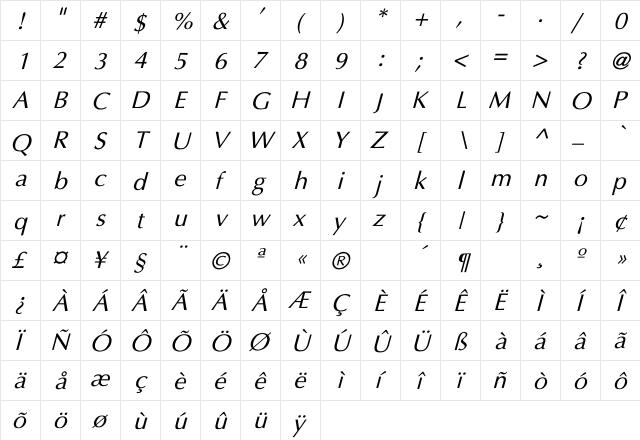
djPrimo Italic Italic
Design Context for djPrimo Italic Typeface
djPrimo Italic offers clean, dependable letterforms without strong stylistic allegiance, making it a practical choice for designers who need flexibility. The slanted form adds forward momentum and visual energy.